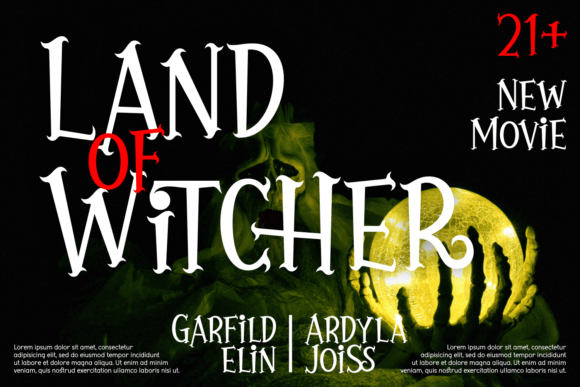
Darkness Witchery is a scary mystical display font. Its witchy and magnetic character will help you create the creepiest Halloween projects so add it now to your designs and be amazed by the outcome generated!
Darkness Witchery Font